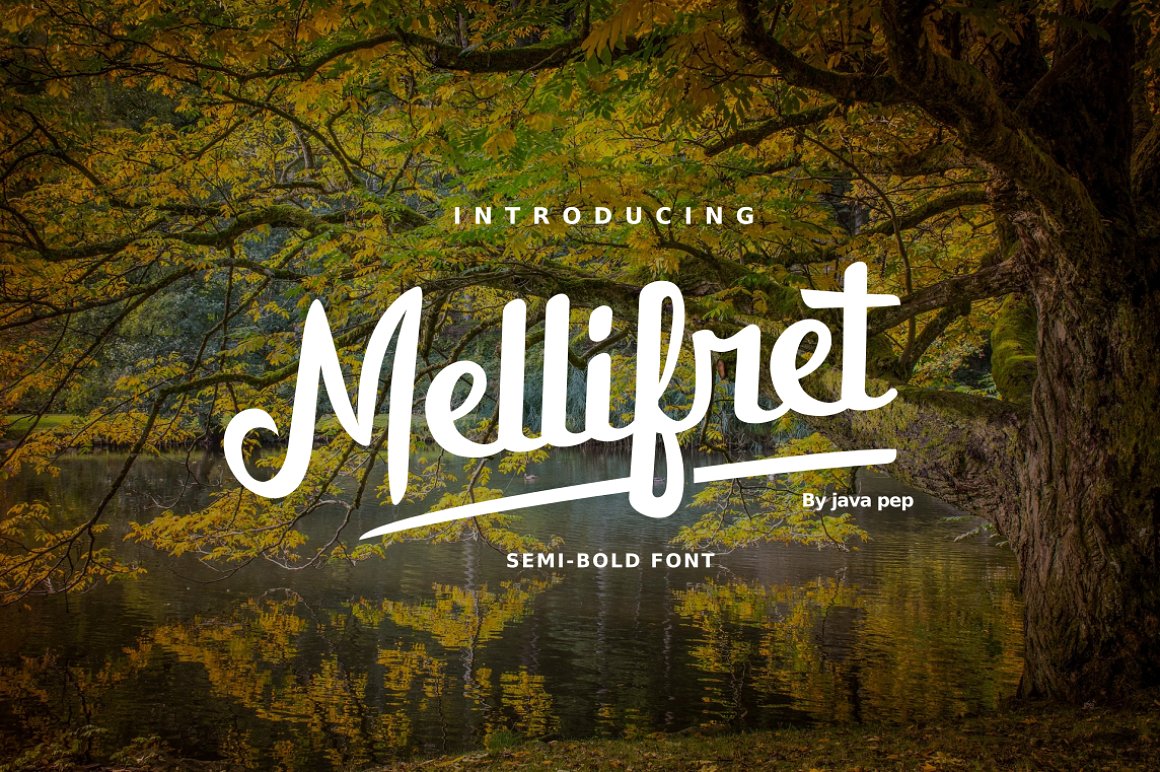
Mellifret Script
Mellifret Script Font
Introducing Mellifret script font. Mellifret is semi-bold font which have characters are strong, bold, clean, and elegant. So Mellifret are suitable for poster, logo, cover book & magazine, website tittle, wedding card and etc.